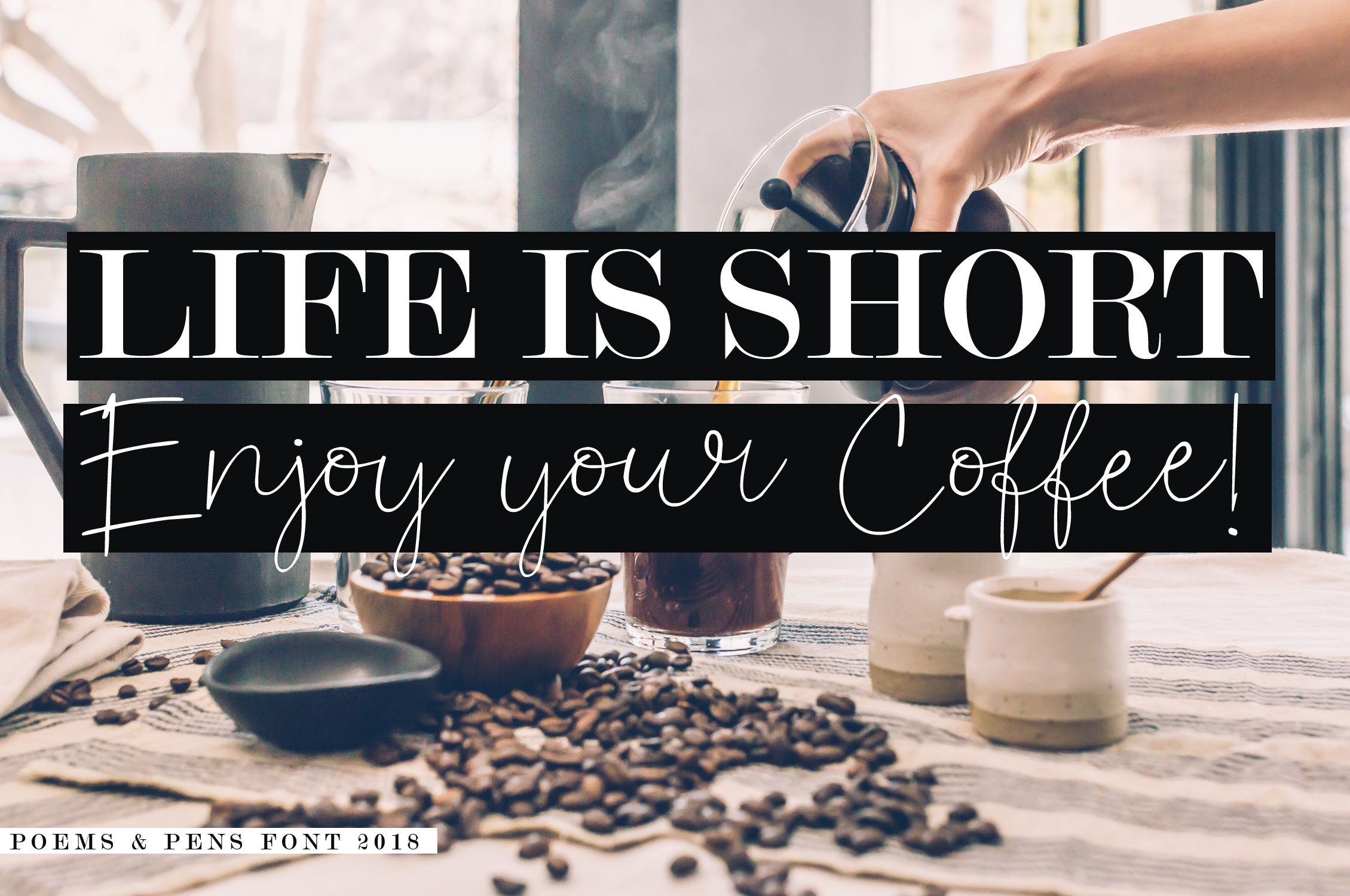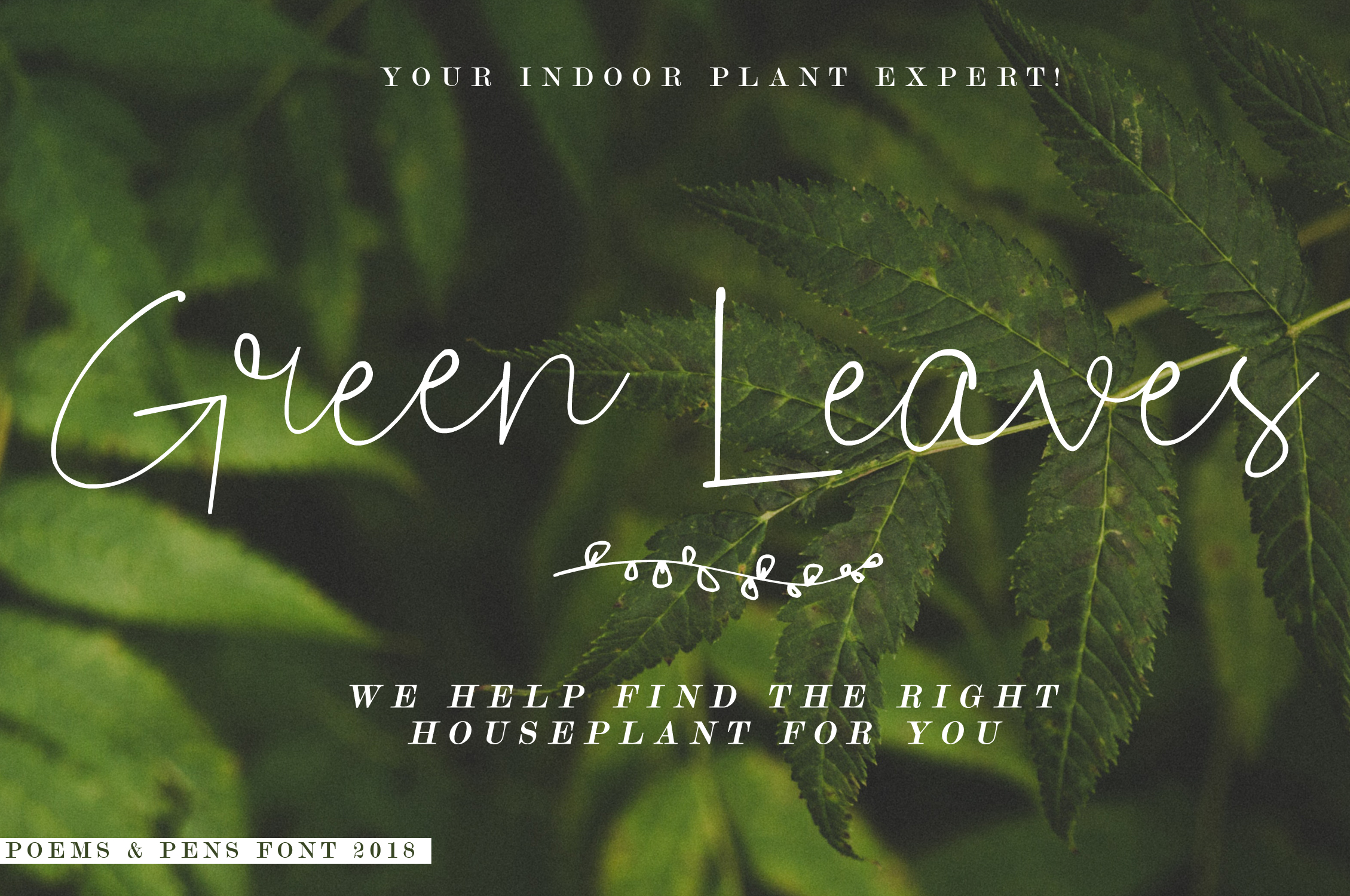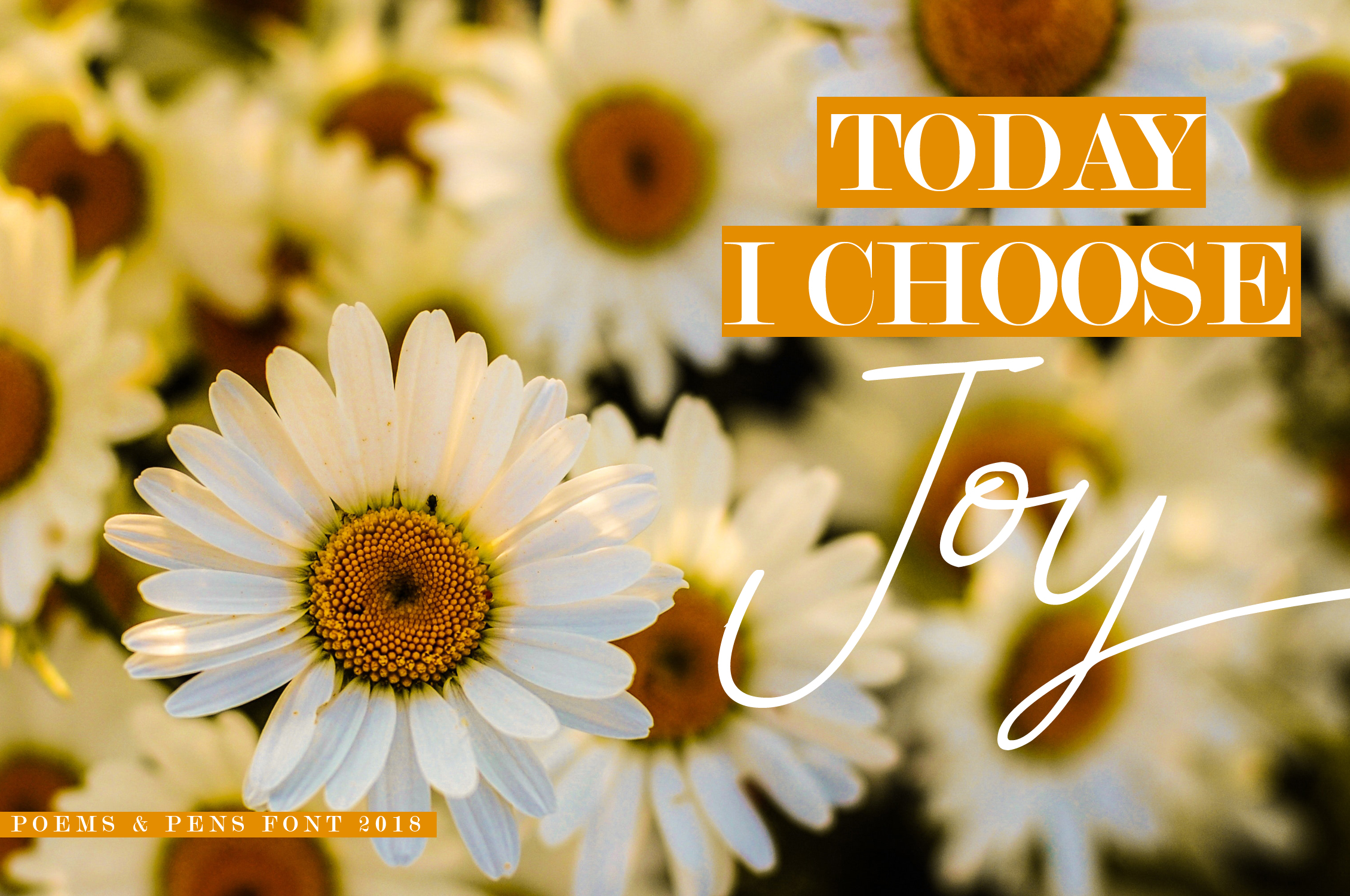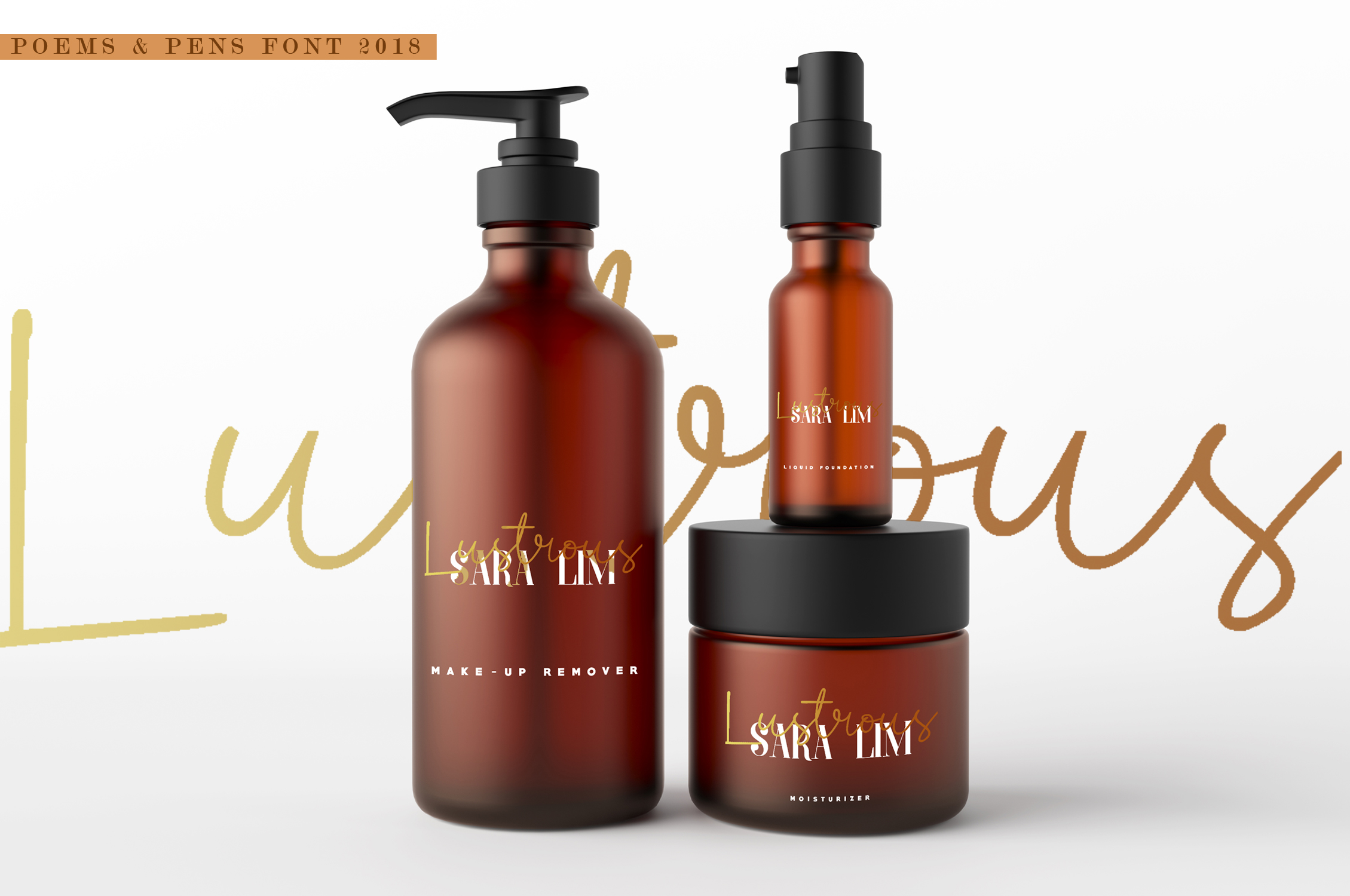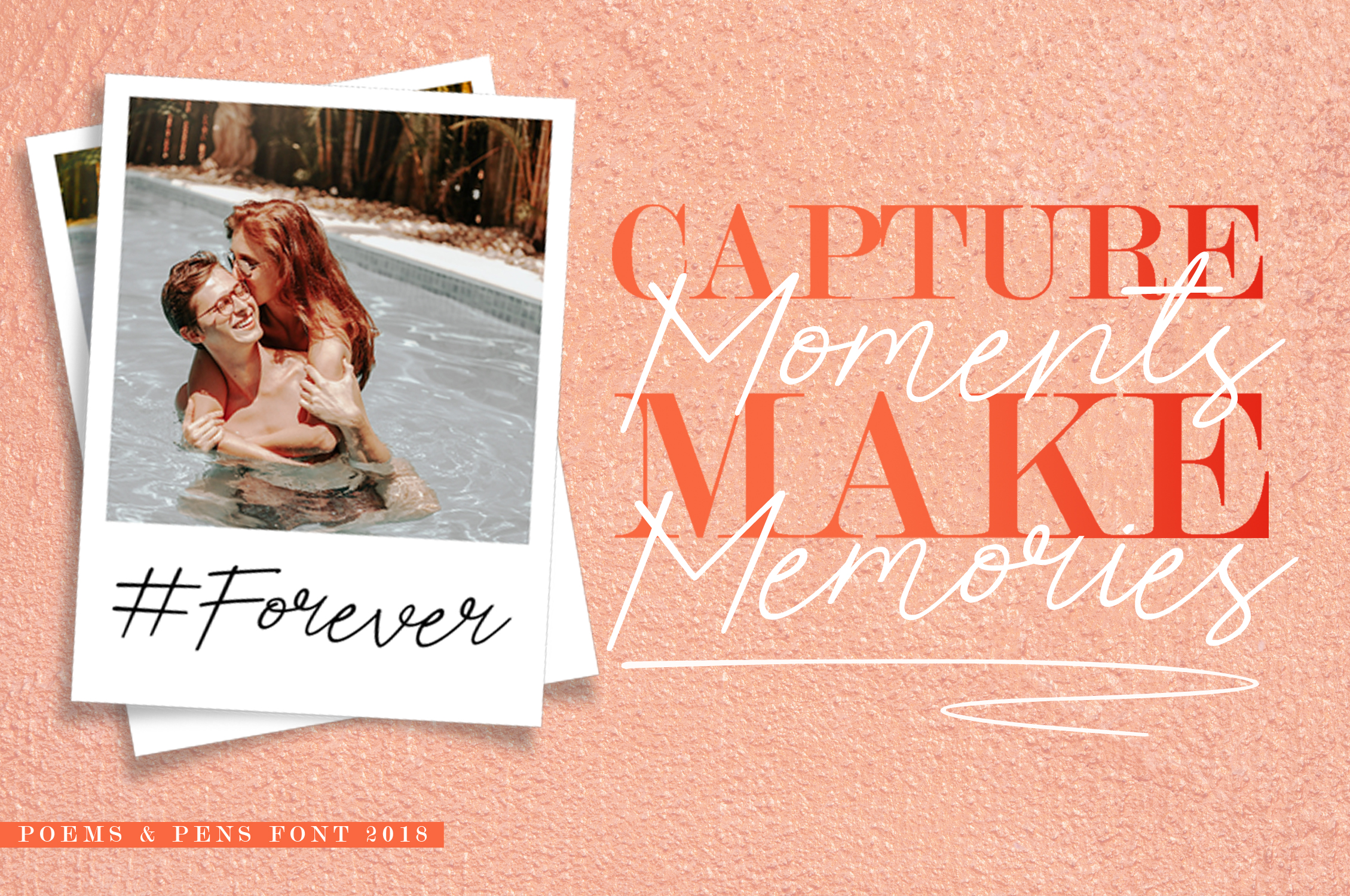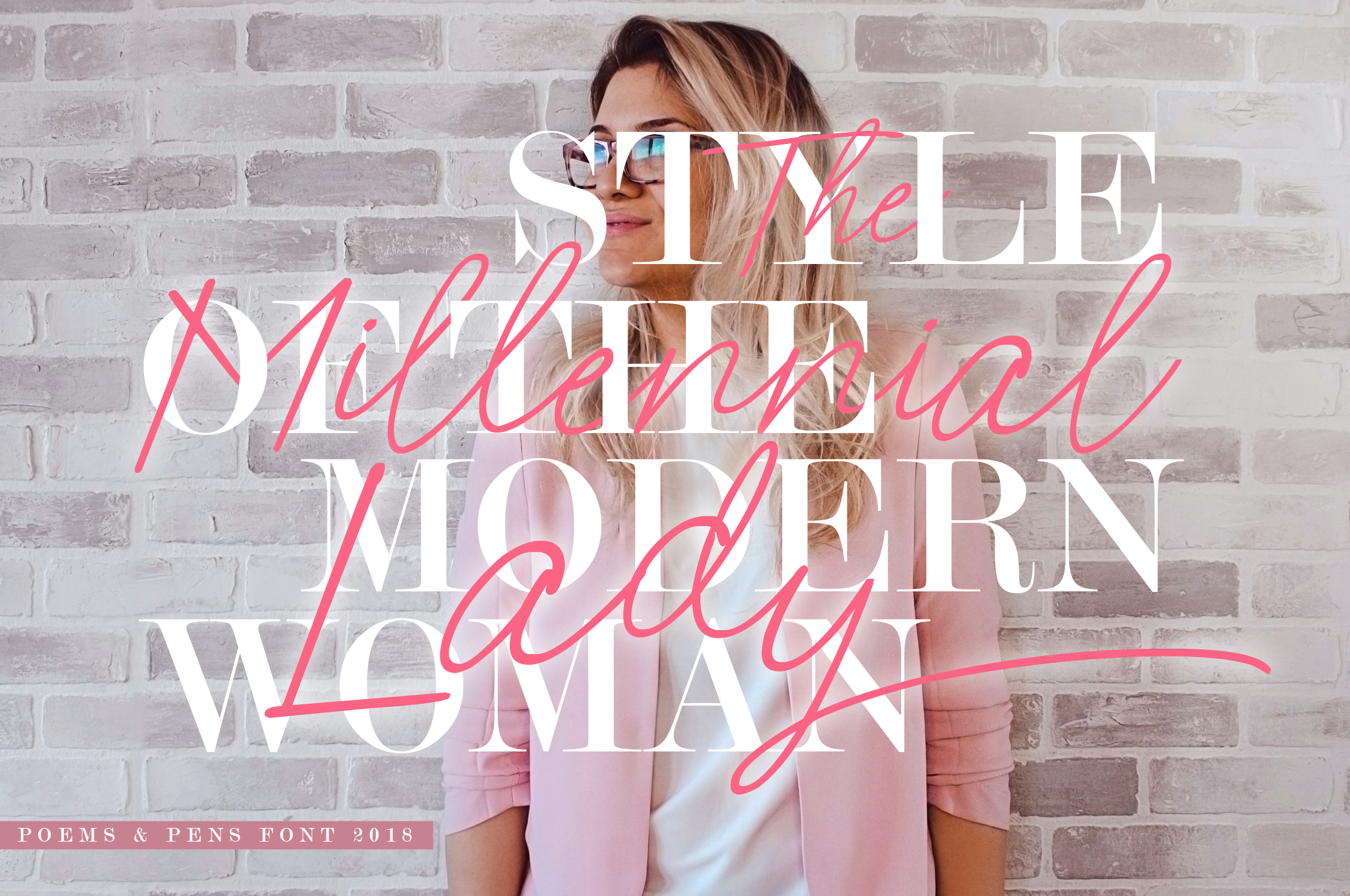
Introduction to Poems & Pens Font
As a designer, have you ever stared blankly at your screen, searching for the perfect font to elevate your next project? The frustration of scrolling through countless options, only to find something that’s just ‘okay’ can be overwhelming. But what if I told you that the search is over? Introducing the Poems & Pens Font, a game-changing cursive font that’s about to revolutionize your creative process.
With its realistic pen texture and jumping-letter appearance, this font is a design dream come true. Whether you’re working on a photography project, branding, or your blog, Poems & Pens Font is the perfect complement to bring your vision to life. Its high-quality design and transparent background make it a valuable resource for any designer, and the best part? It’s a free download, making it accessible to creatives of all levels.
What sets Poems & Pens Font apart is its attention to detail, from the extra characters to the clip-arts and alternate end-letters, this font has been carefully crafted to give your project that extra oomph. So why wait? Download the Poems & Pens Font today and discover a whole new world of creative possibilities.
Key Features of Poems & Pens Font
- High-quality, elegant script font perfect for creative projects and design resources.
- Designed to be highly versatile, suitable for a wide range of applications, including invitations, logos, and editorial content.
Honest Review: Poems & Pens Font
I recently stumbled upon the Poems & Pens Font, and I’m excited to share my honest thoughts about this design resource. As a designer, I’m always on the lookout for high-quality fonts that can elevate my creative projects.
One of the things that stands out about the Poems & Pens Font is its unique aesthetic. The font features beautiful, cursive script that’s perfect for adding a touch of elegance to any design. The transparent background option allows for seamless integration with any image or background, making it a great choice for designers who want to add a bit of whimsy to their projects.
- ✨ Unique and elegant script style
- ✨ Transparent background option for seamless integration
- ⚠️ Limited font sizes and styles, which may limit its versatility
- ⚠️ May not be suitable for designs that require bold, sans-serif fonts
Overall, I’m impressed with the Poems & Pens Font. While it may have some limitations, its unique aesthetic and high-quality design make it a great addition to any designer’s toolkit. I would definitely recommend it to designers who are looking for a beautiful, elegant font for their creative projects.
Poems & Pens Font is ideal for creative projects such as book covers, magazine layouts, and social media graphics. Its elegant and sophisticated design makes it perfect for weddings, baby showers, and other special occasions. You can also use it for personal projects, such as